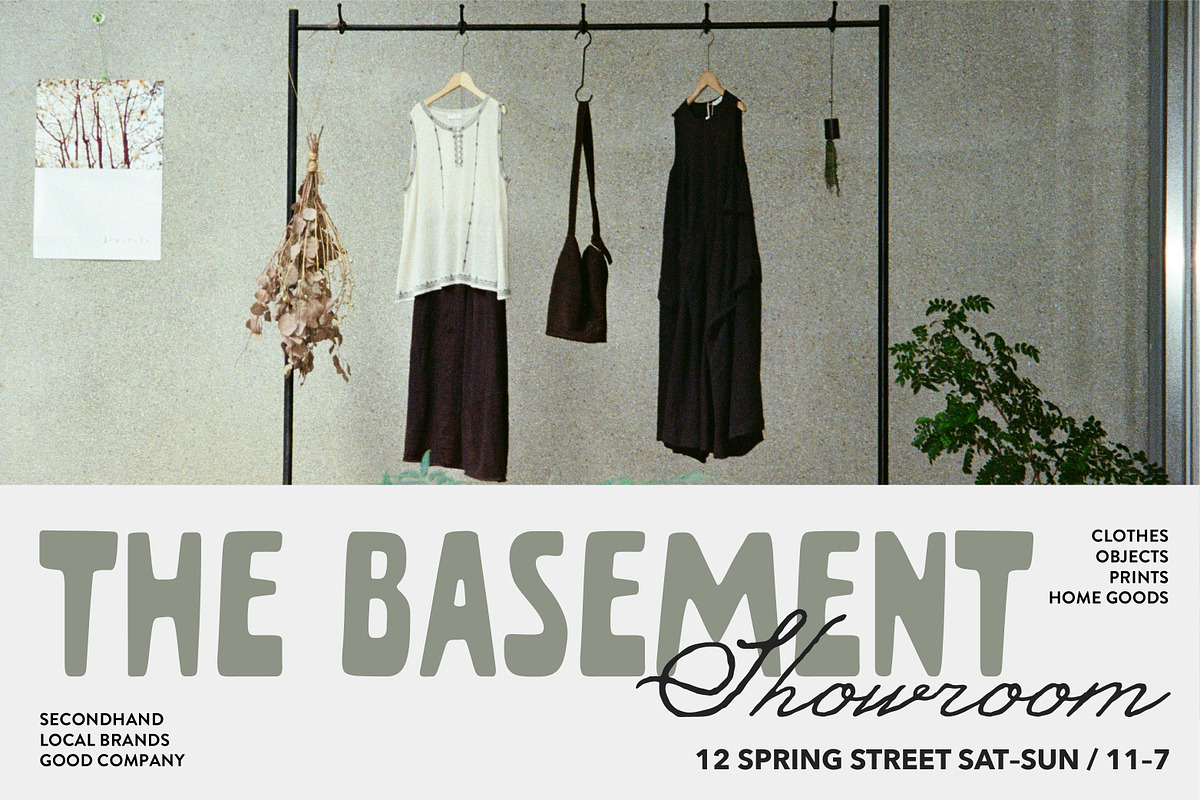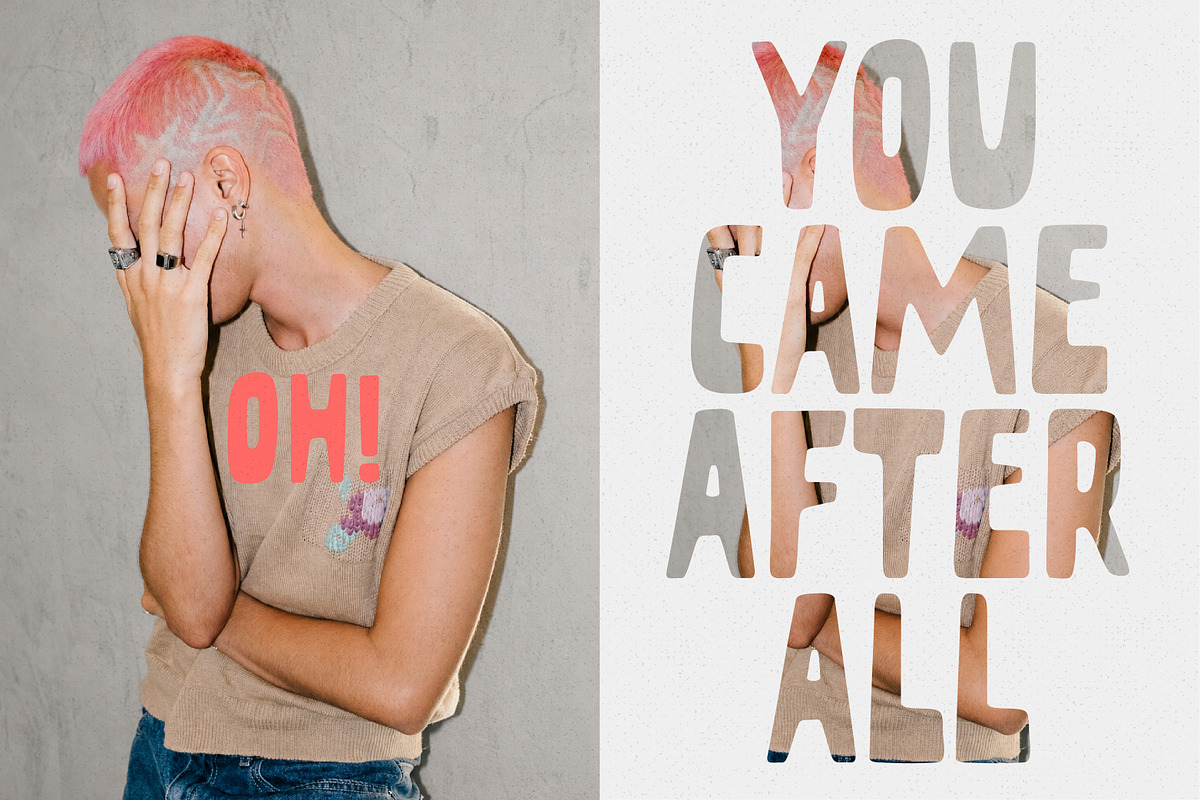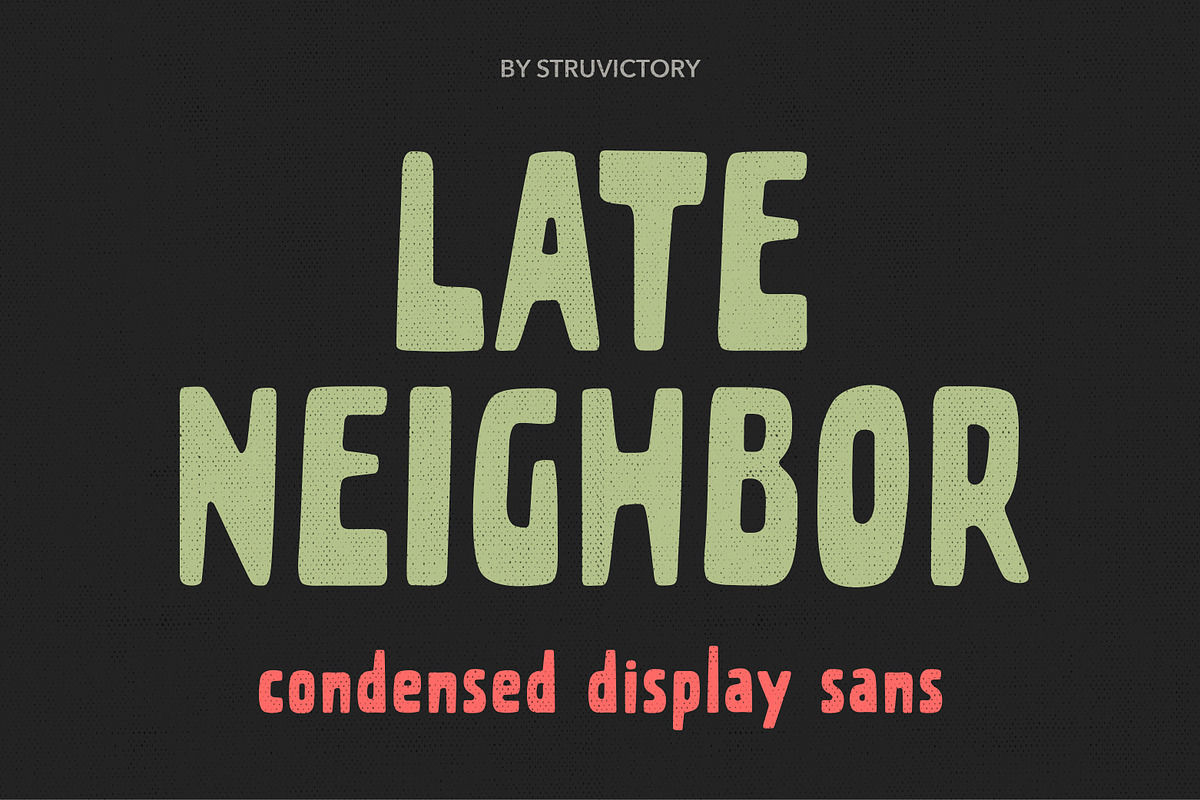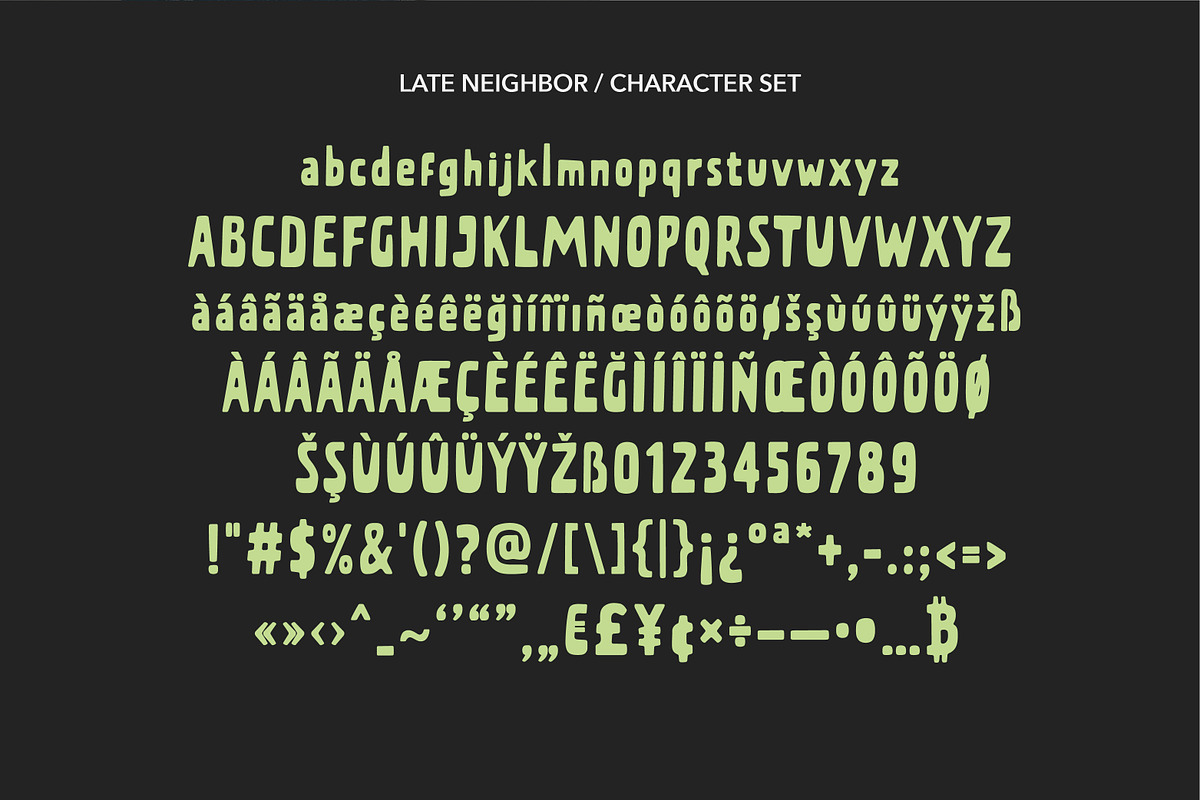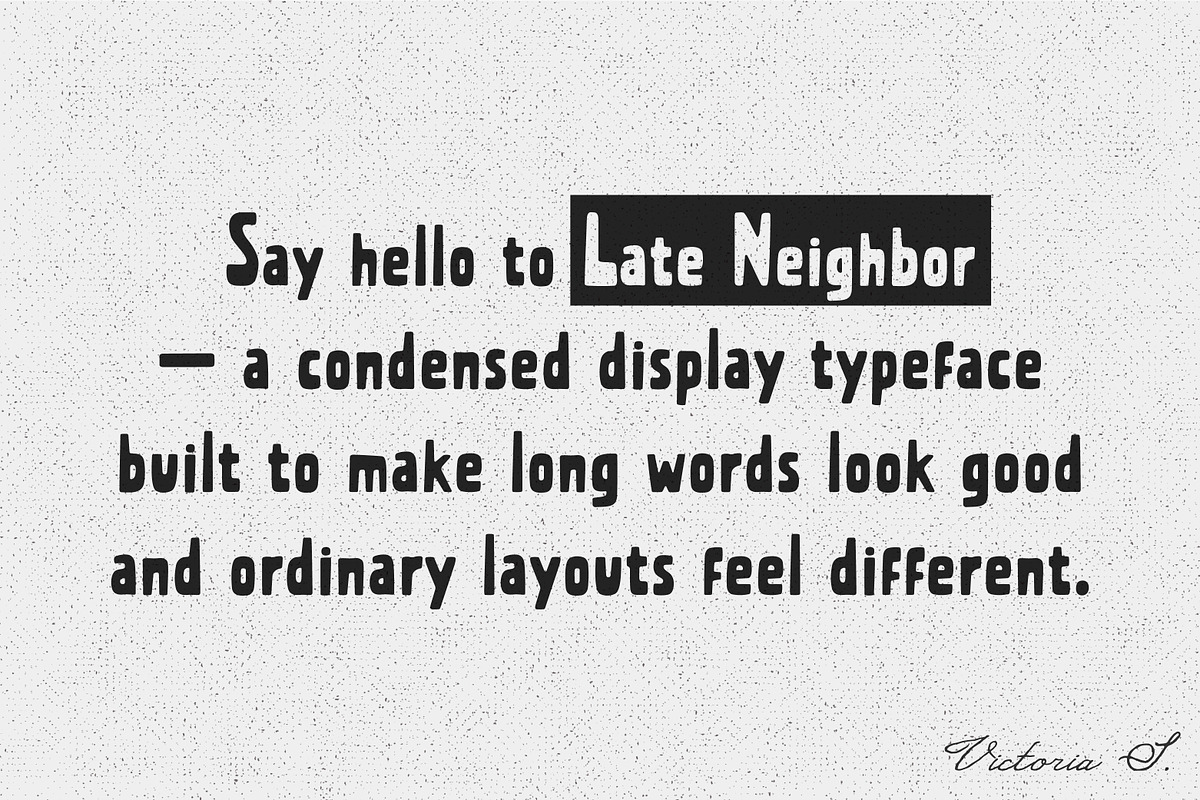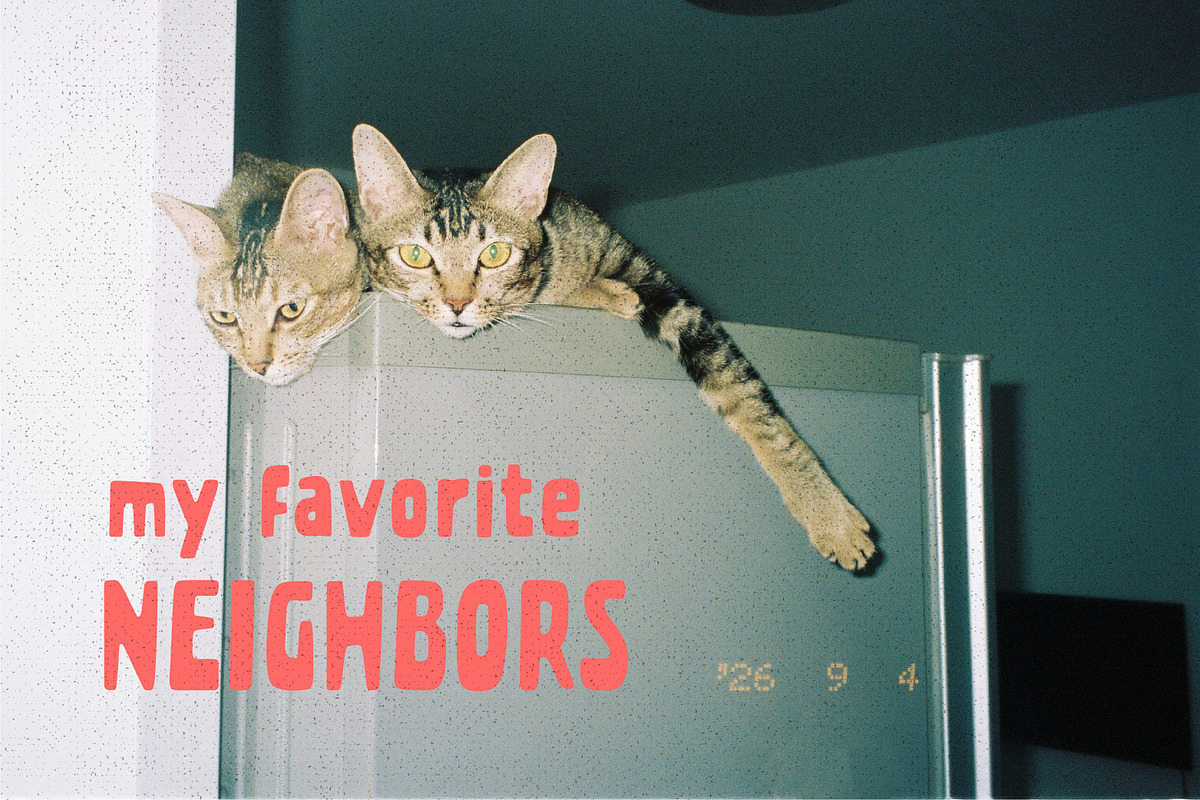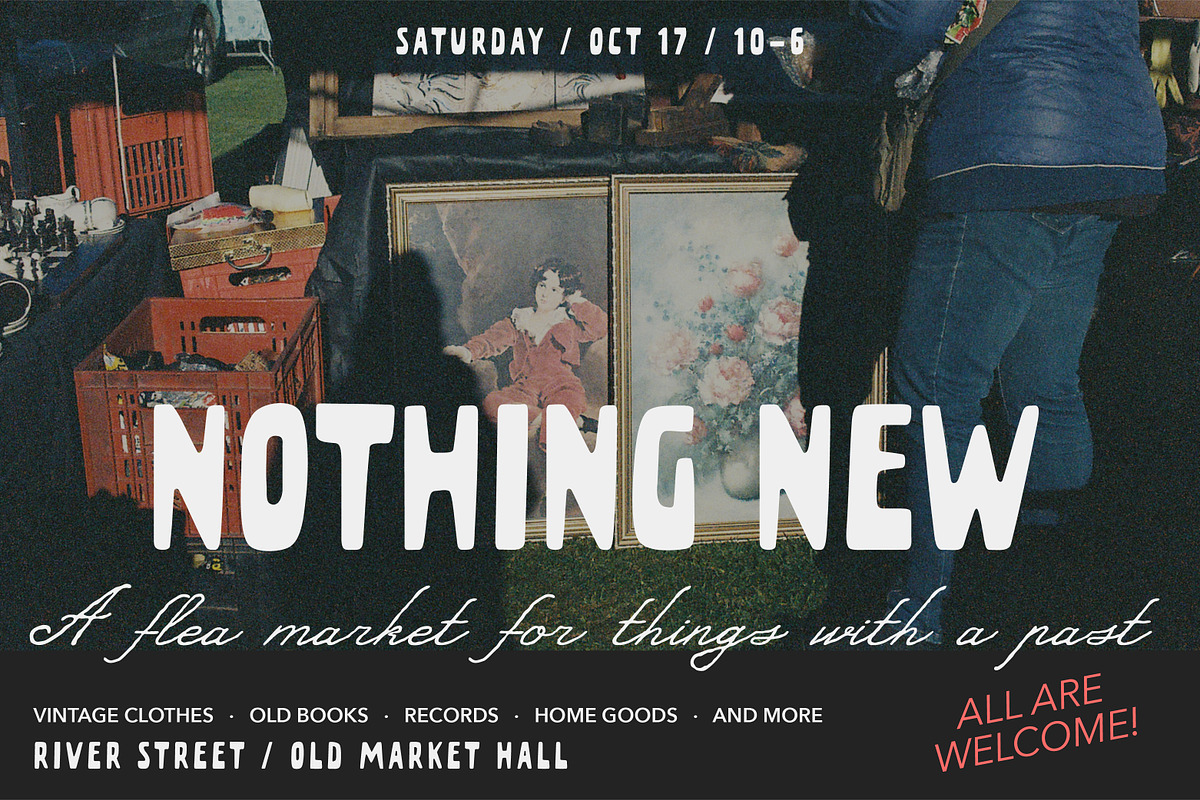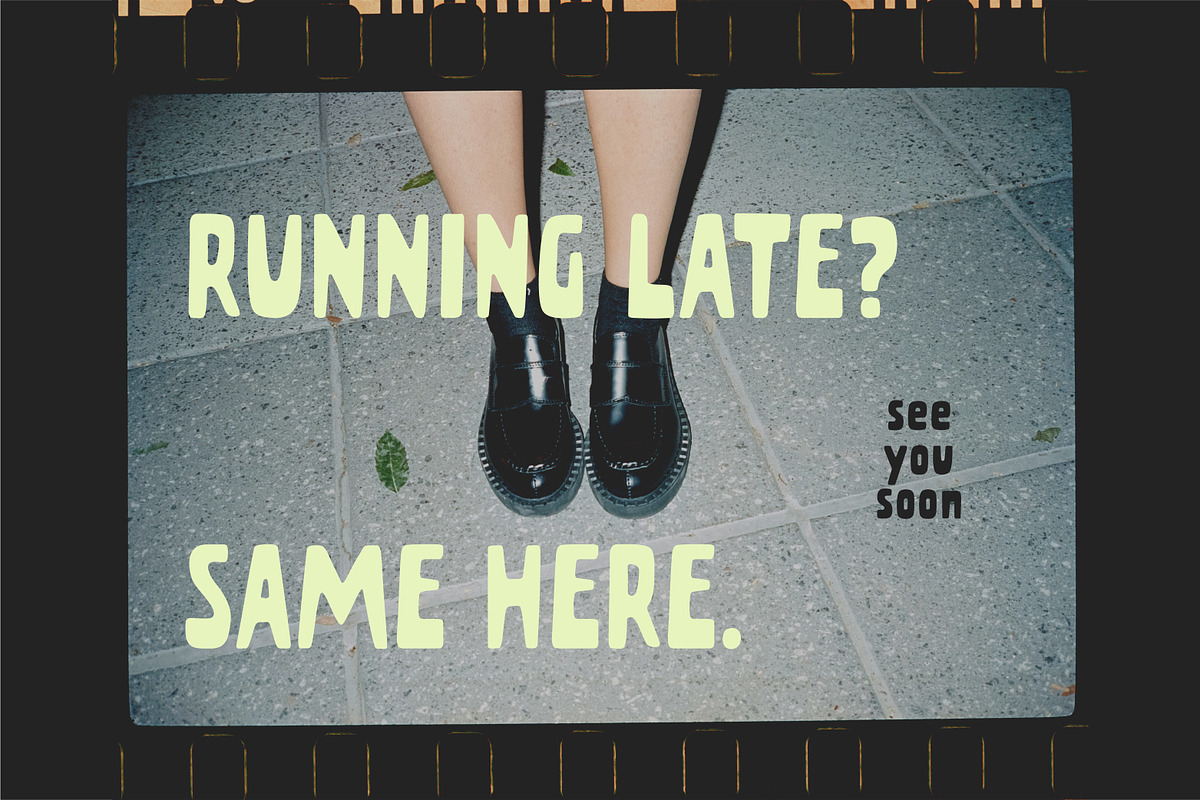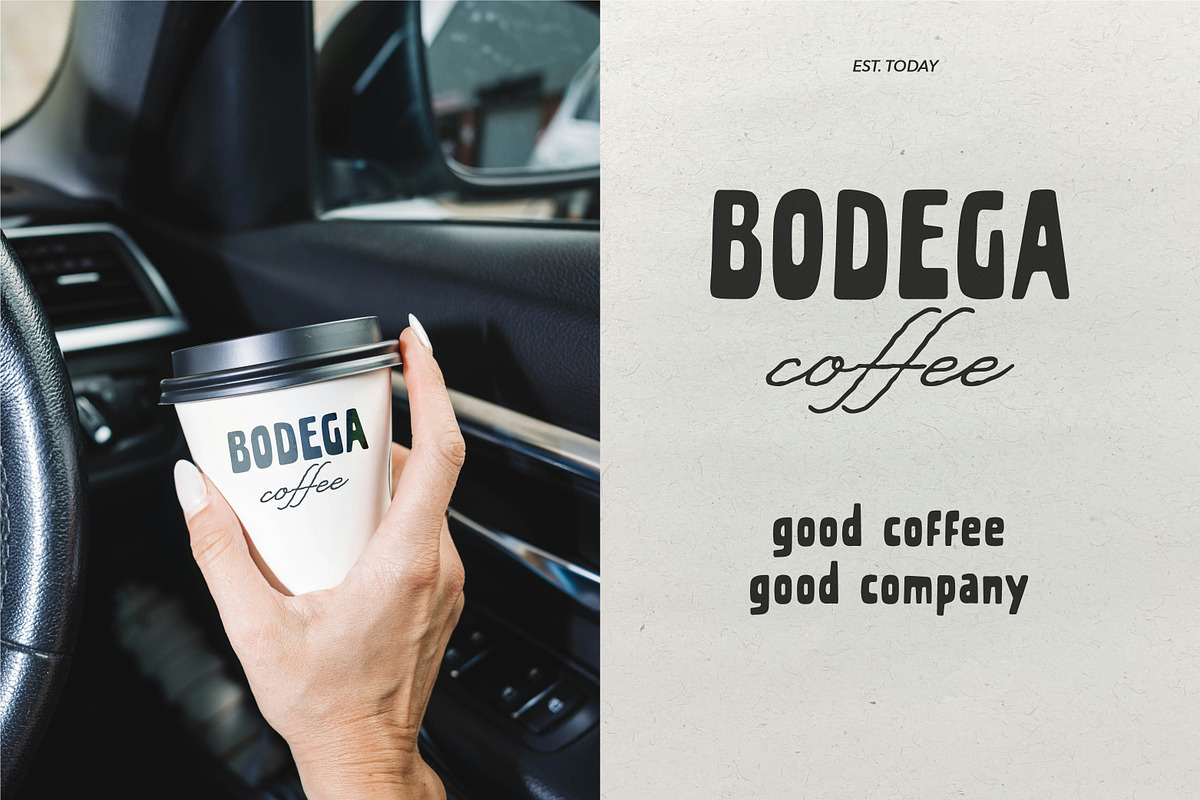
Late Neighbor Condensed Bold Sans
Late Neighbor is a bold condensed display sans with a slightly imperfect, characterful feel. Its narrow proportions and expressive letterforms give long words a strong graphic rhythm, while subtle irregularities keep the shapes feeling human and distinctive. Designed for bold branding, posters, packaging, signage, editorial layouts, apparel, food and lifestyle projects, Late Neighbor brings a confident everyday personality to both large headlines and compact compositions.